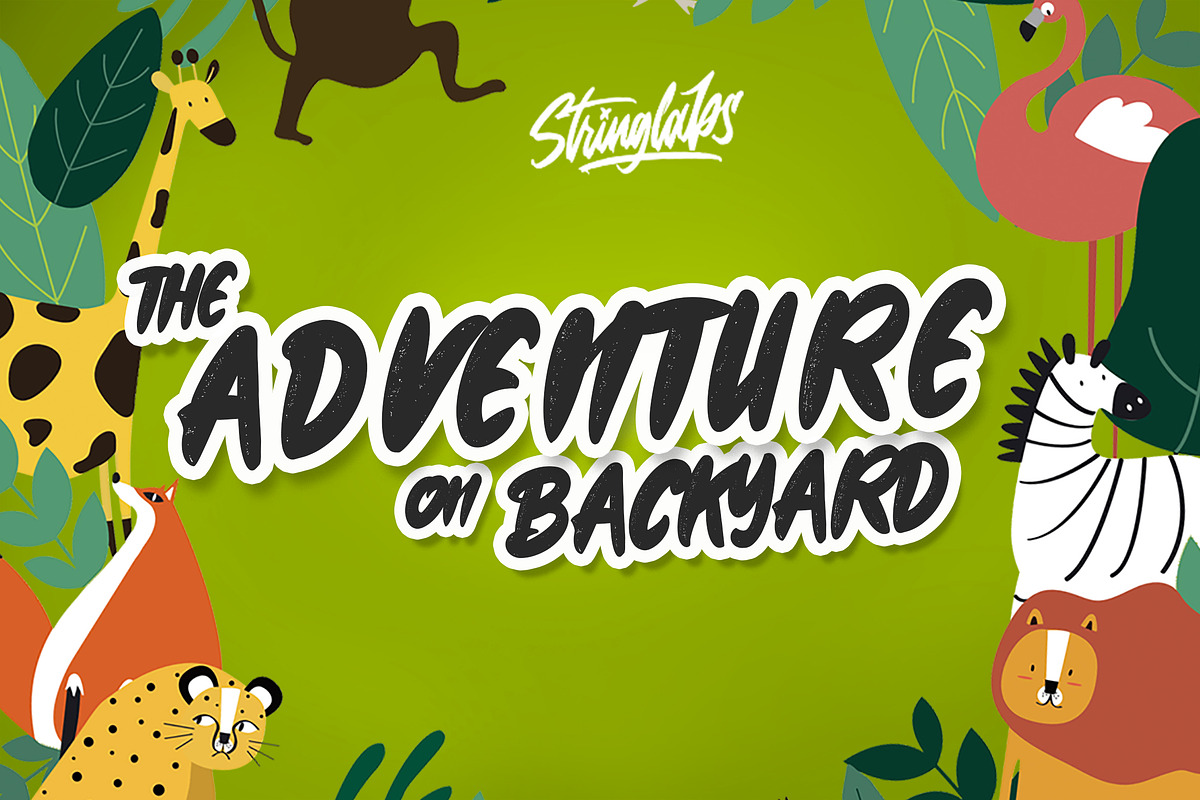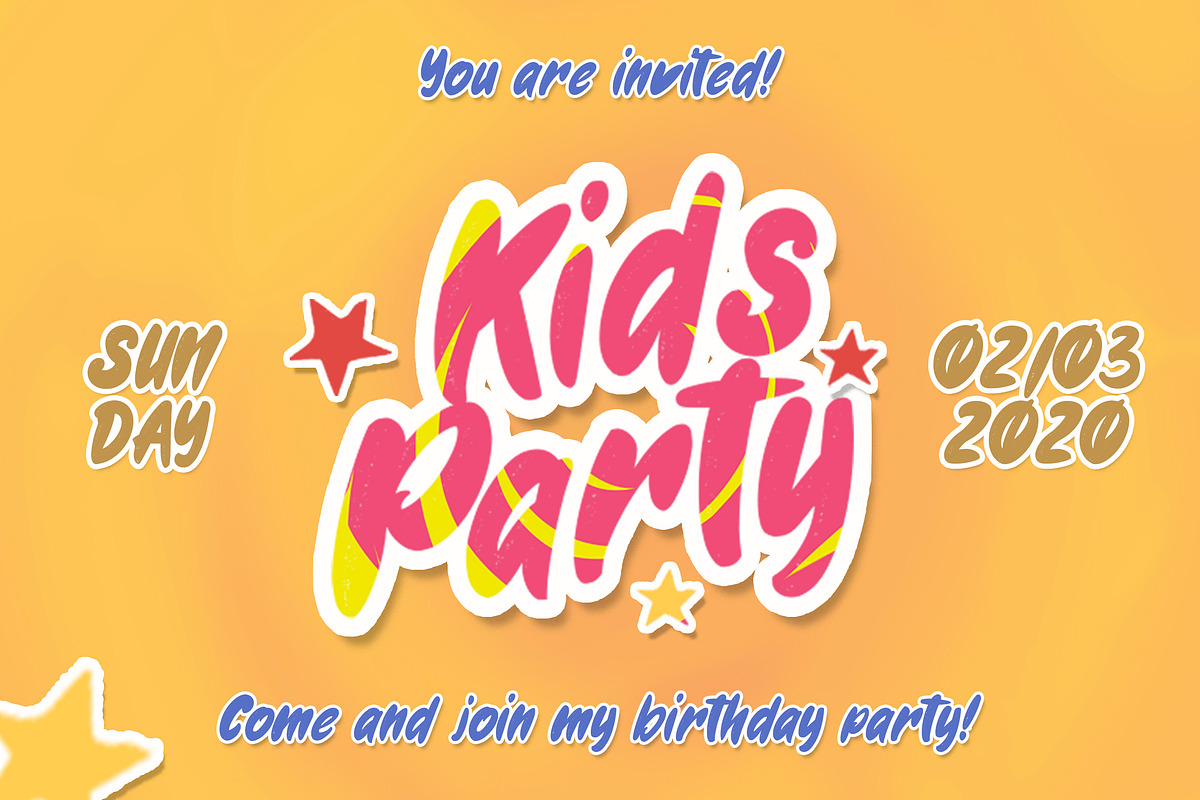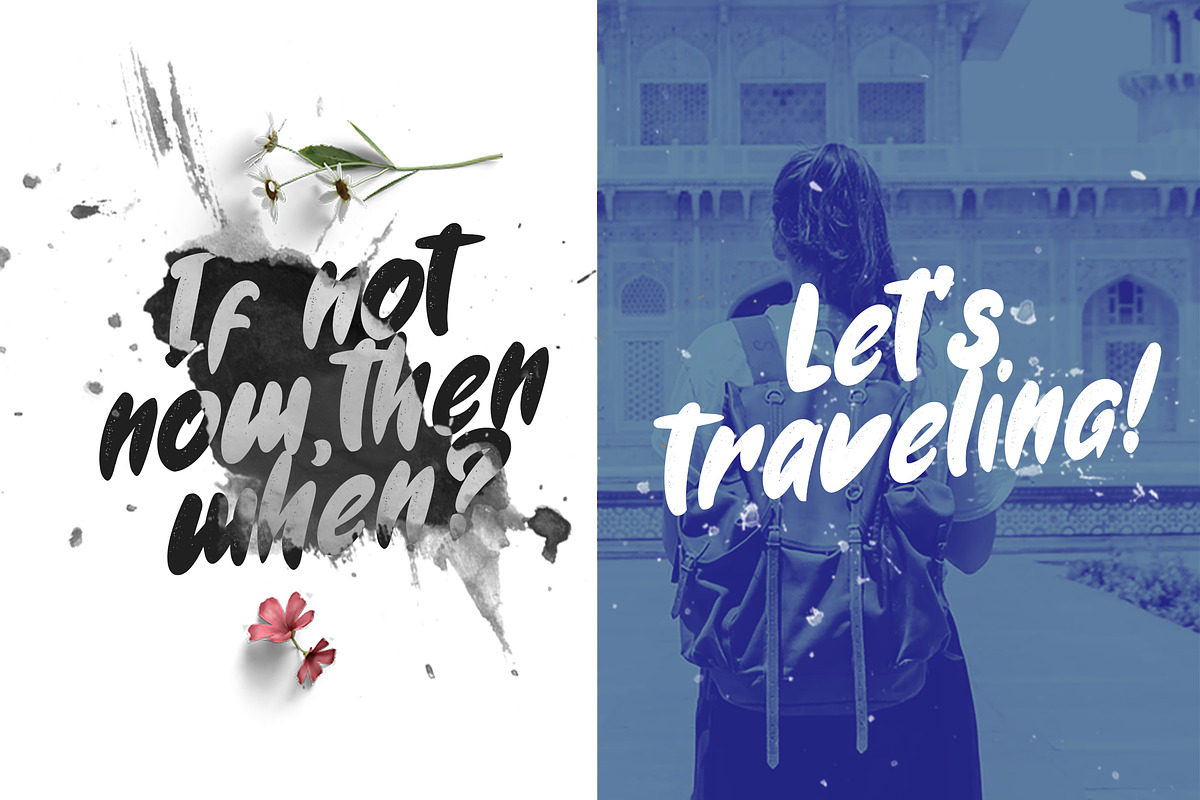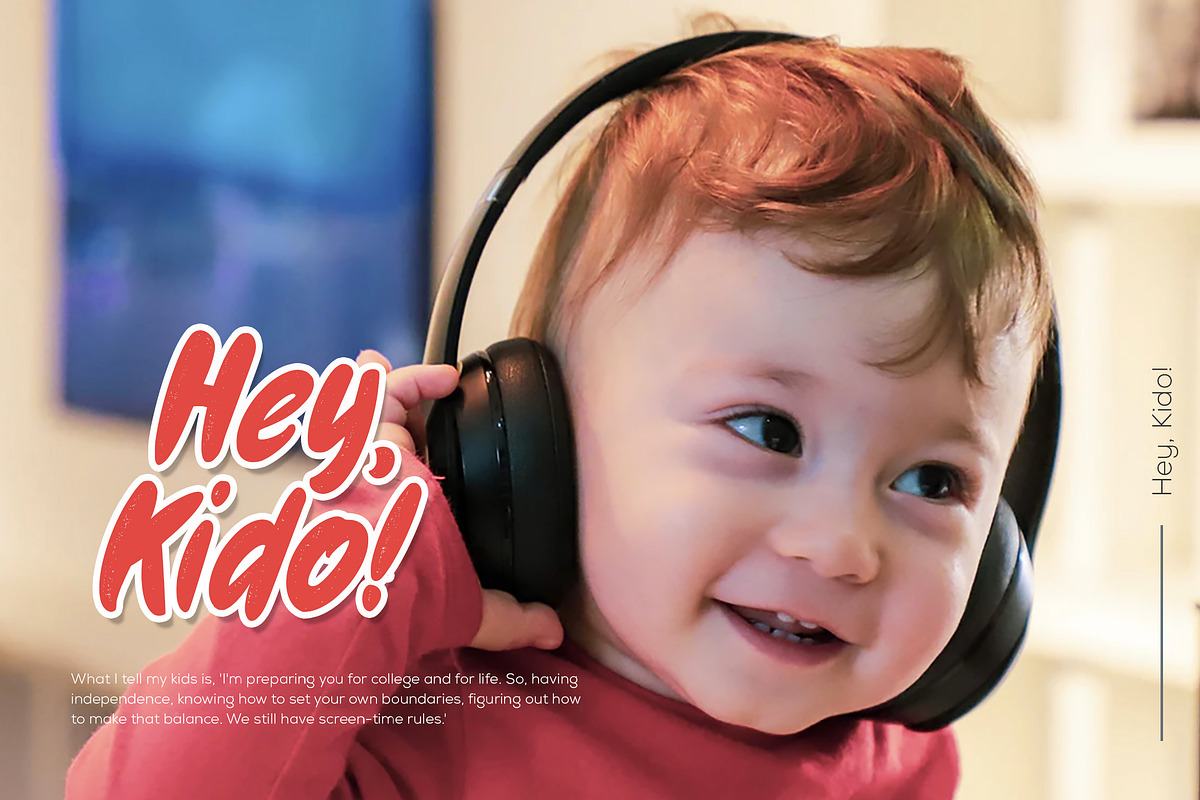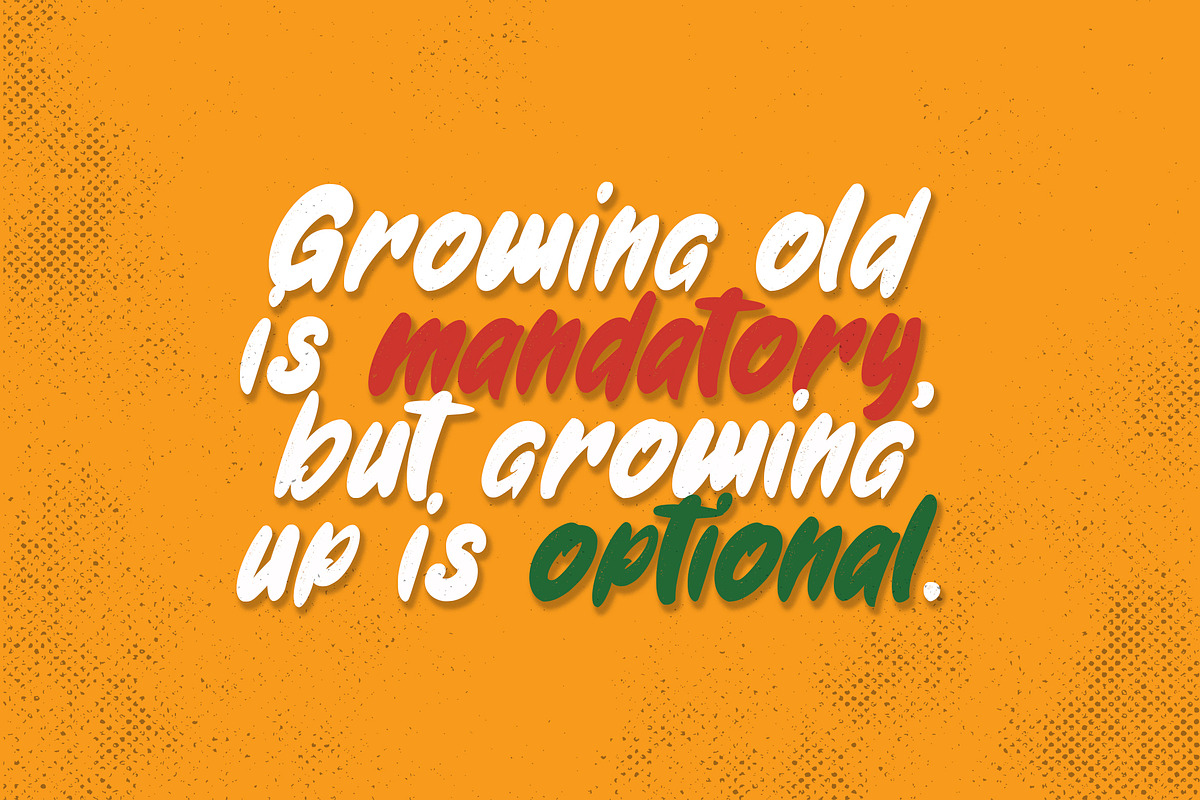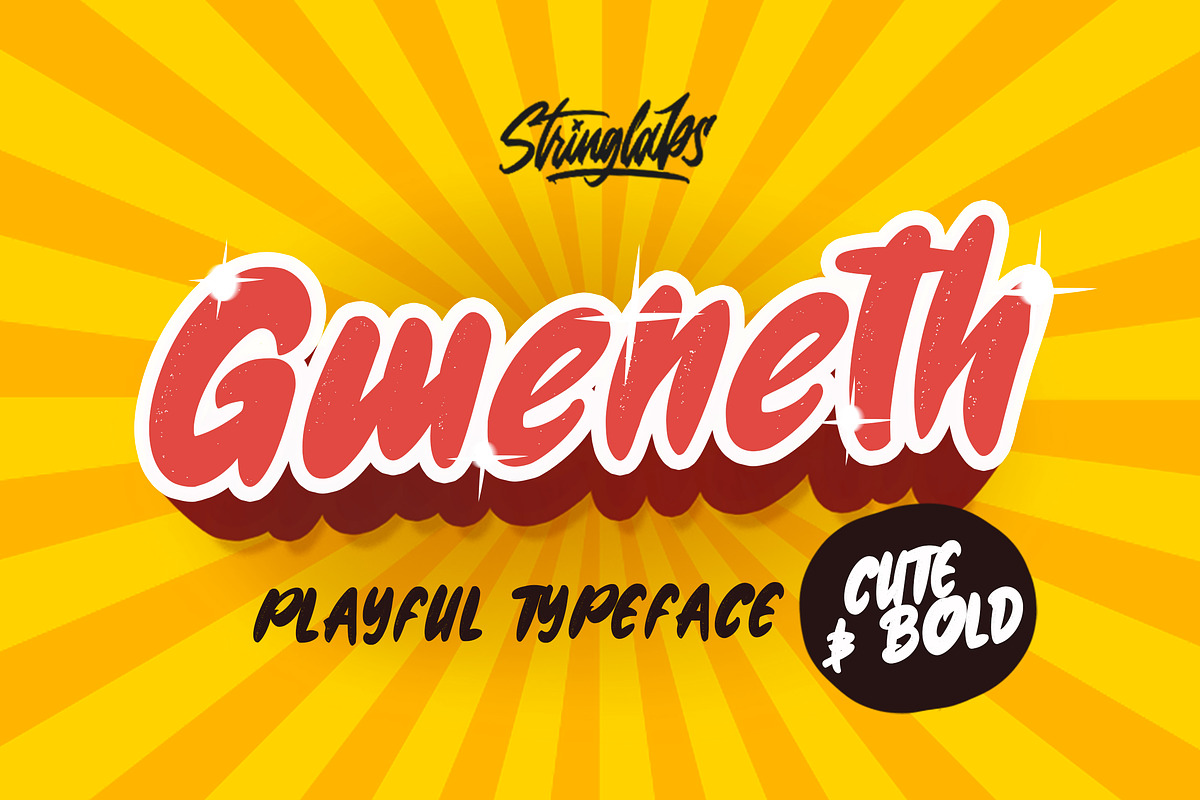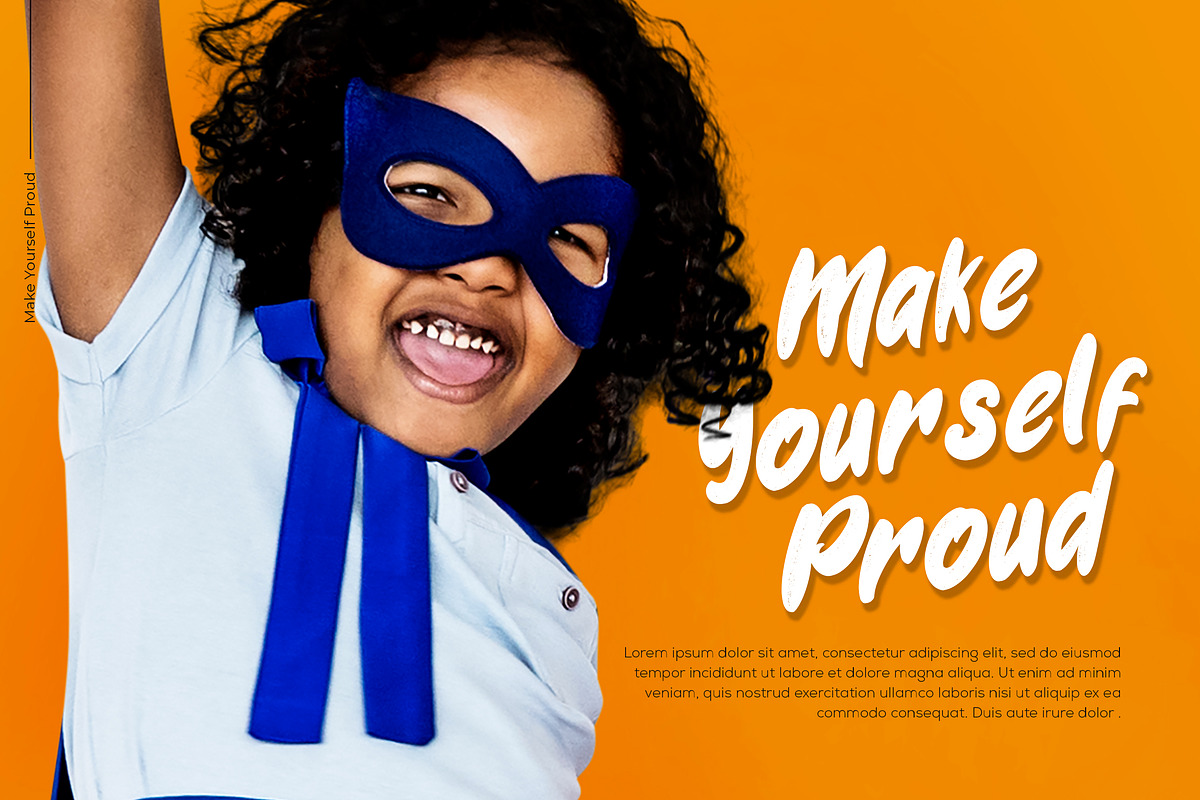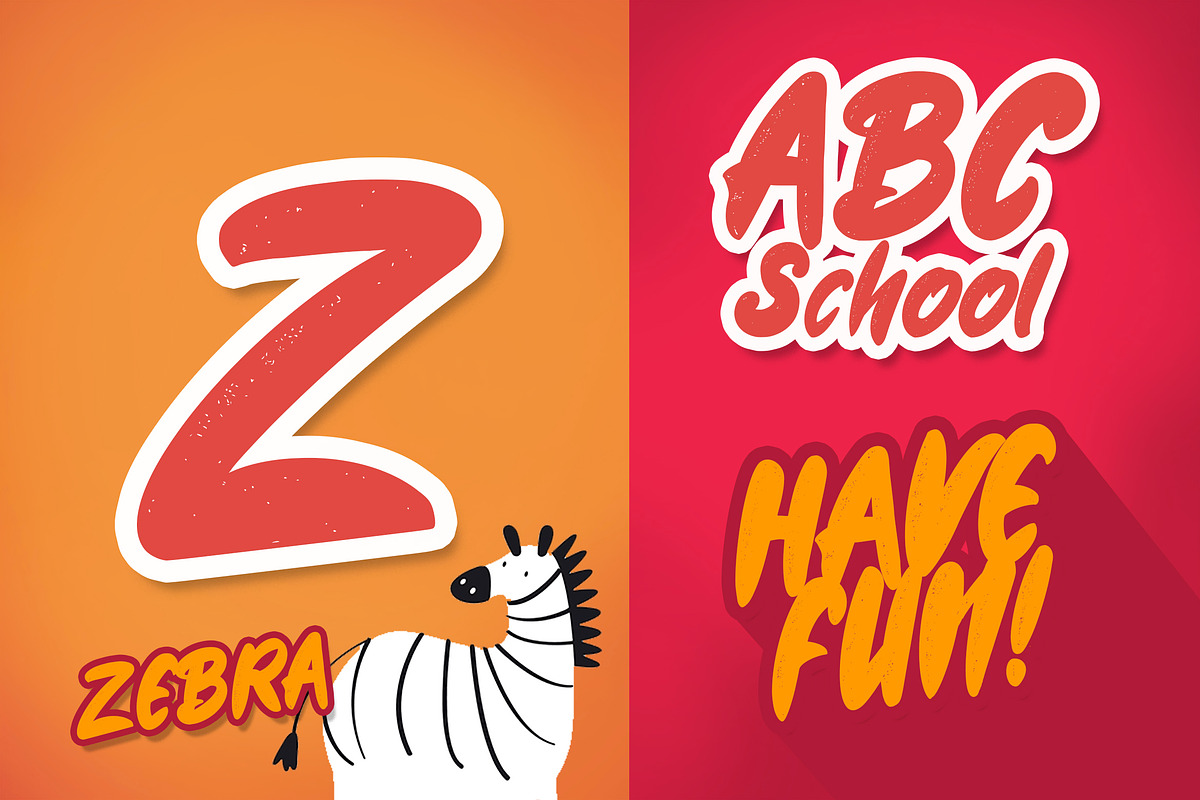
Gweneth - Playful Children Typeface
Introducing Gweneth - Playful Children Typeface
This font is perfect for those of you who want the style of children. Fonts Made specifically for purposes such as: Kindergarten, Birthday, Kid, Cartoon, Comic, Children, and Playground.